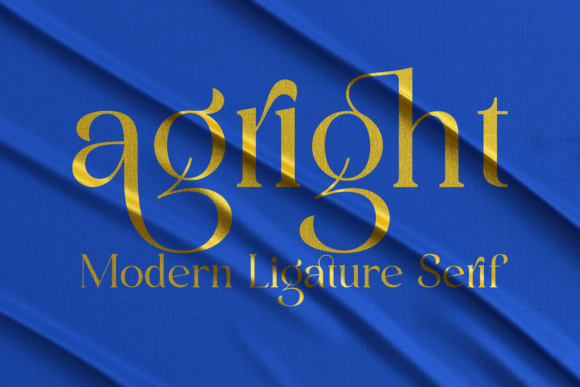
Agright is a bold, stylish and cool serif font that has become a staple in my design toolkit. This font is PUA encoded, which means you can access all glyphs and swashes with ease! Agright reads as strong, confident, and dynamic and can add tons of stylish character to your designs.
An Honest Review of Agright Font
- ✨ Bold and Stylish: Agright Font is perfect for designers looking for a font that makes a statement. Its bold and stylish design is sure to grab attention.
- ✅ PUA Encoded: The PUA encoding makes it easy to access all glyphs and swashes, giving you more creative freedom.
- 💻 Versatile: Agright Font can be used for a variety of design projects, from logos and branding to posters and social media graphics.
While Agright Font is an excellent choice, there are a few things to keep in mind:
- 🤔 Not Suitable for Body Text: Due to its bold design, Agright Font may not be the best choice for body text. It’s better suited for headings and titles.
The Designer Behind Agright Font
Agright Font was designed with the intention of creating a bold and stylish serif font that would make a statement. While the designer’s backstory may be shrouded in mystery, it’s clear that they were driven by a passion for typography and design. The result is a font that’s both confident and dynamic.
| Font Name | Agright Font |
| Author | 177Studio |
| What is Agright Font? | Agright Font is a bold, stylish and cool serif font designed for creative projects. |